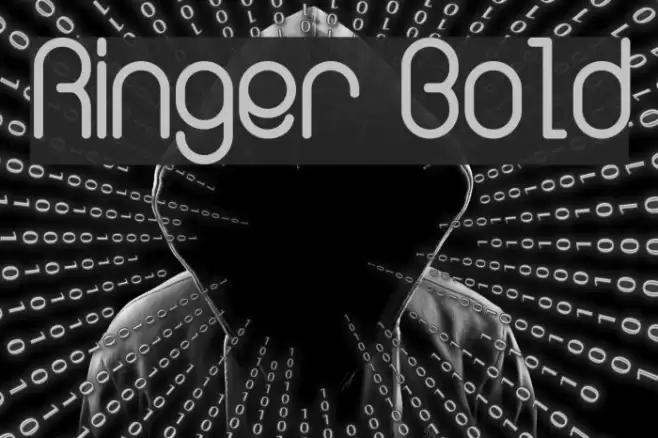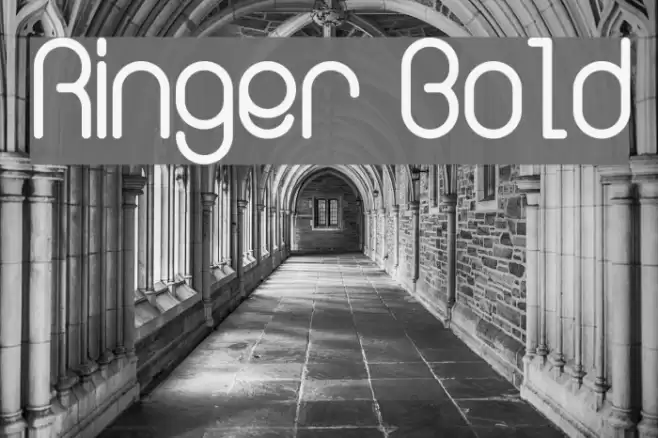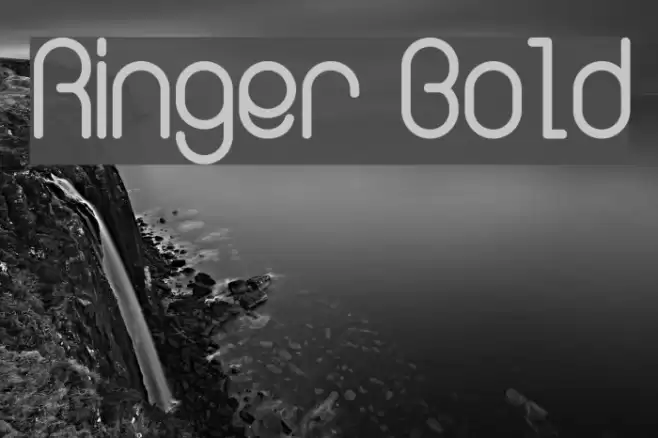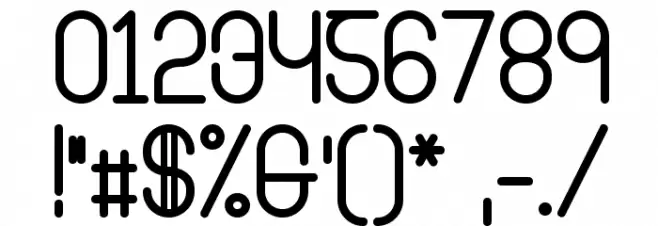
Ringer Bold Font
Ringer Bold Description
This font features a modern, geometric design with rounded edges and a clean, minimalist aesthetic. The characters are uniform in width, creating a harmonious and balanced appearance. The uppercase and lowercase letters maintain a consistent style, with smooth curves and a slightly condensed form. The numerals and special characters are designed to complement the alphabet, offering a cohesive look across all elements. This font's bold weight enhances its visibility and impact, making it suitable for various design applications.
A modern, geometric font with rounded edges and a bold, minimalist style from Uncategorized fonts.
- Proposed Projects: Ideal for branding, advertising, packaging, and digital media projects that require a contemporary and eye-catching typeface.
- Width: Condensed
- Use Case: Headlines, Logos, Branding